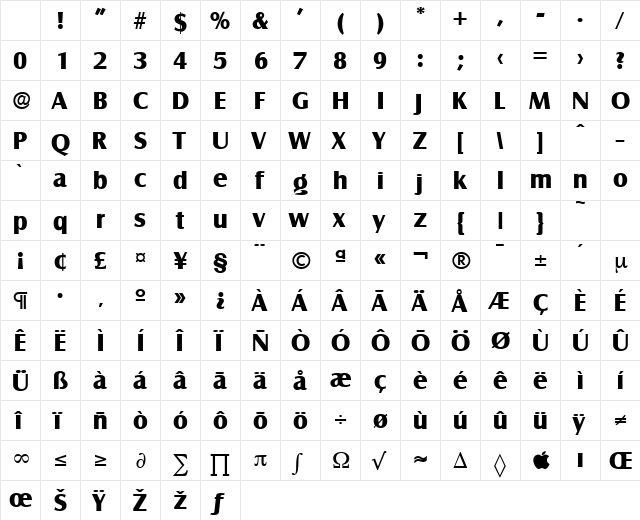
Complete Salzburg-Serial-ExtraBold Regular glyph index. Displaying only characters natively supported by Salzburg-Serial-ExtraBold Regular font.
Salzburg-Serial-ExtraBold is a composed and adaptable typeface that performs quietly and consistently across a wide range of design contexts. Its bold stroke weight gives it real presence on the page.